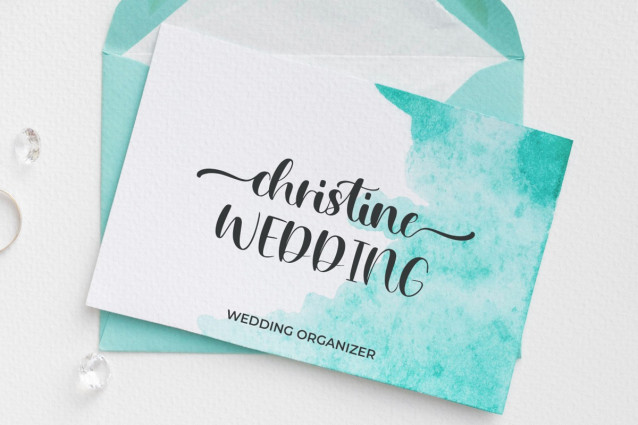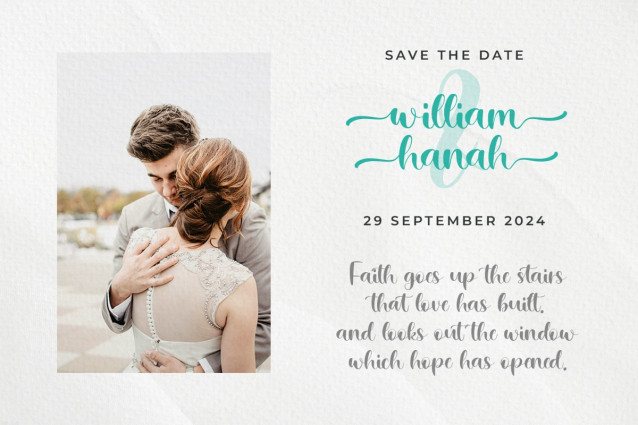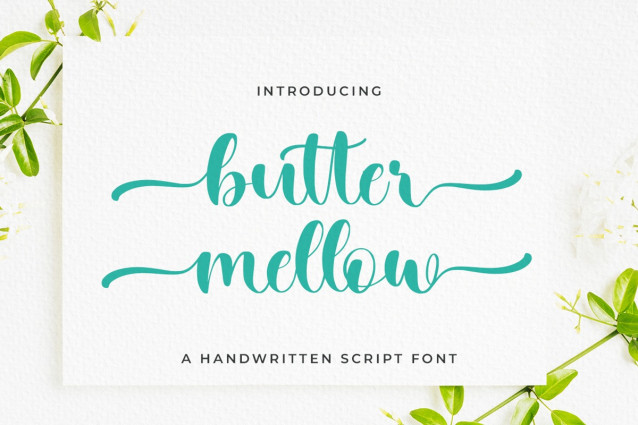
LT Butter Mellow Font
LT Butter Mellow Font Immerse your projects in a touch of elegance and personality with this beautifully crafted typeface butter mellow is perfect for invitations, branding, social media posts, and other designs that require an authentic, handwritten feel.